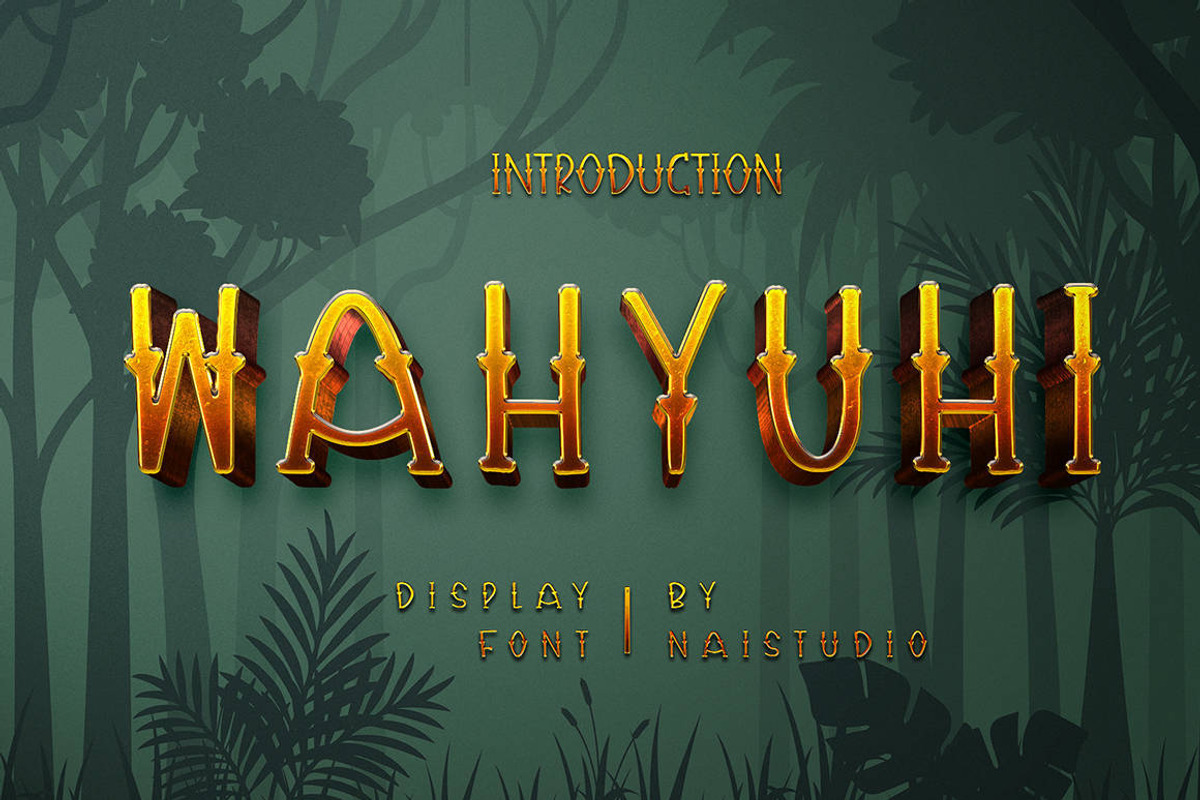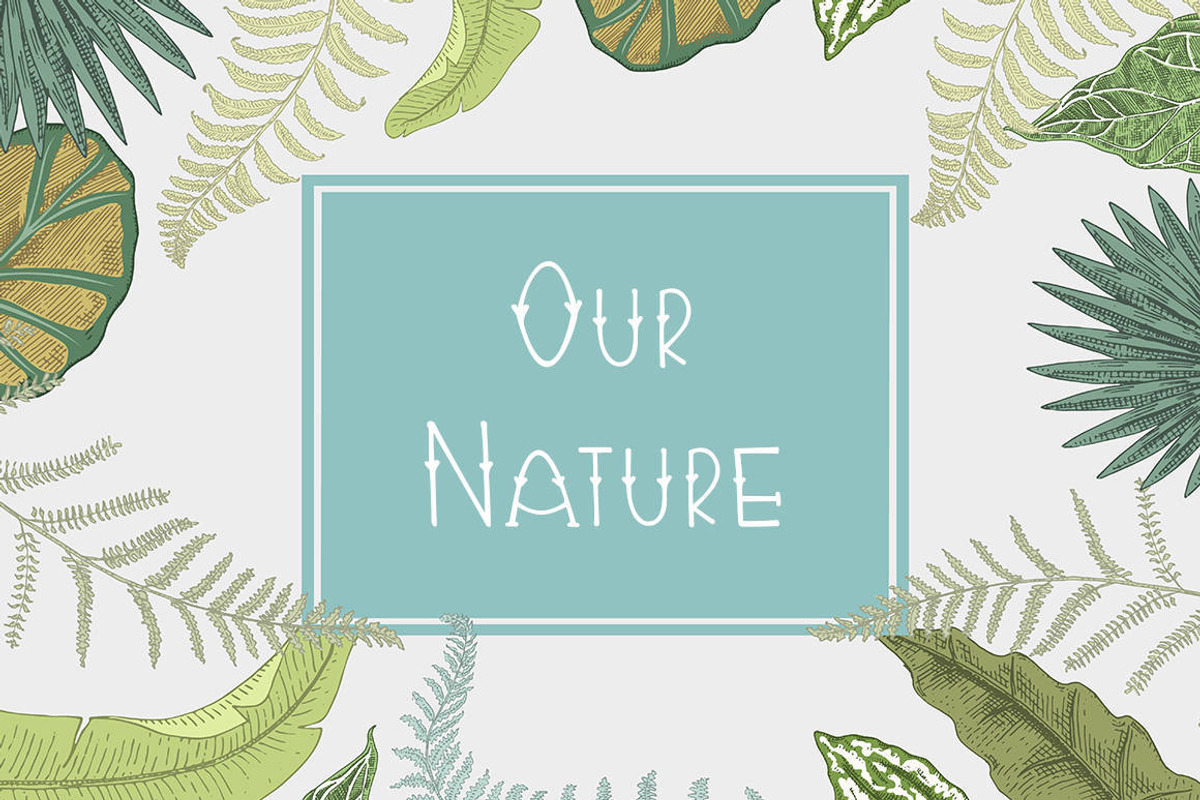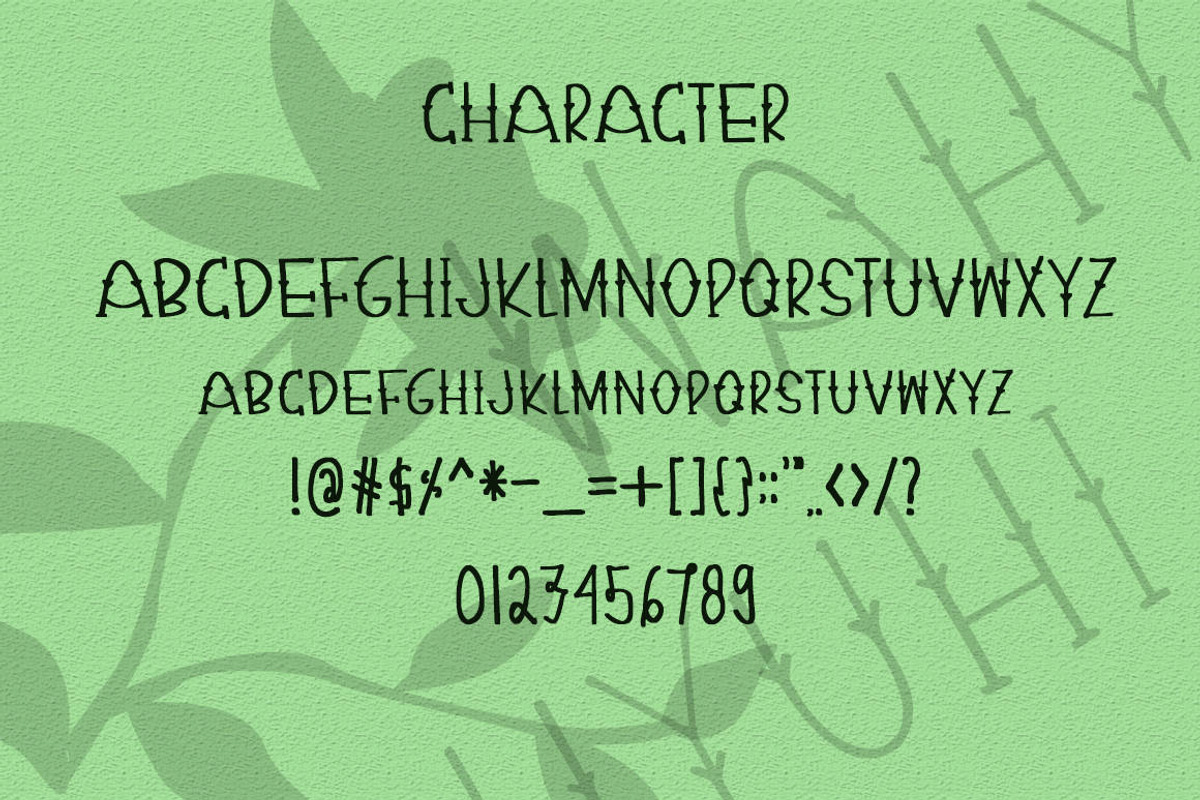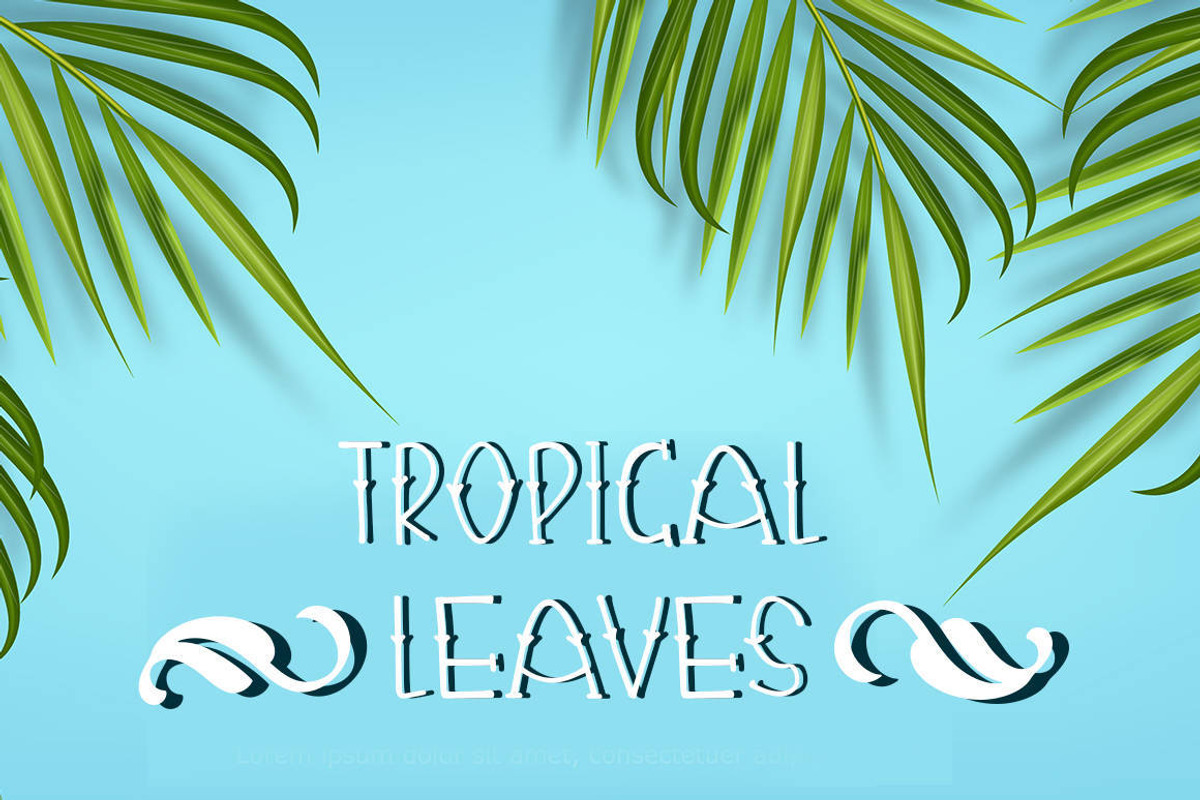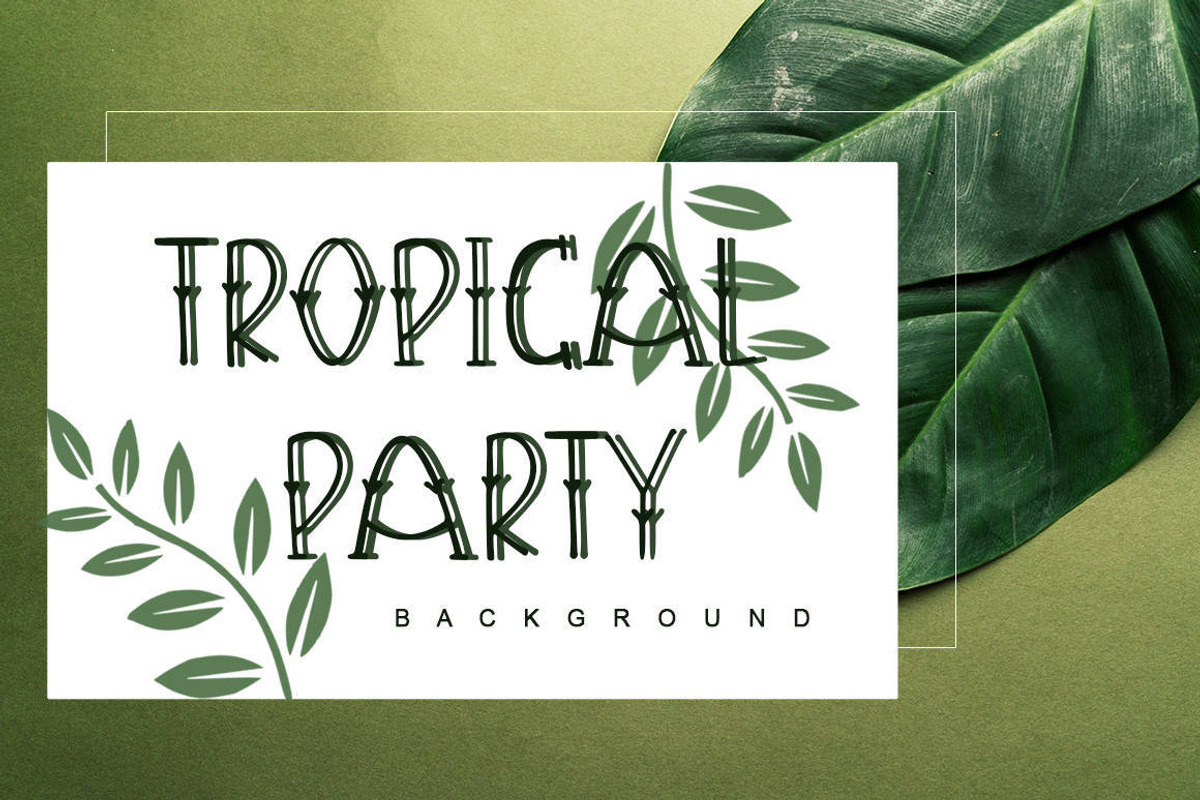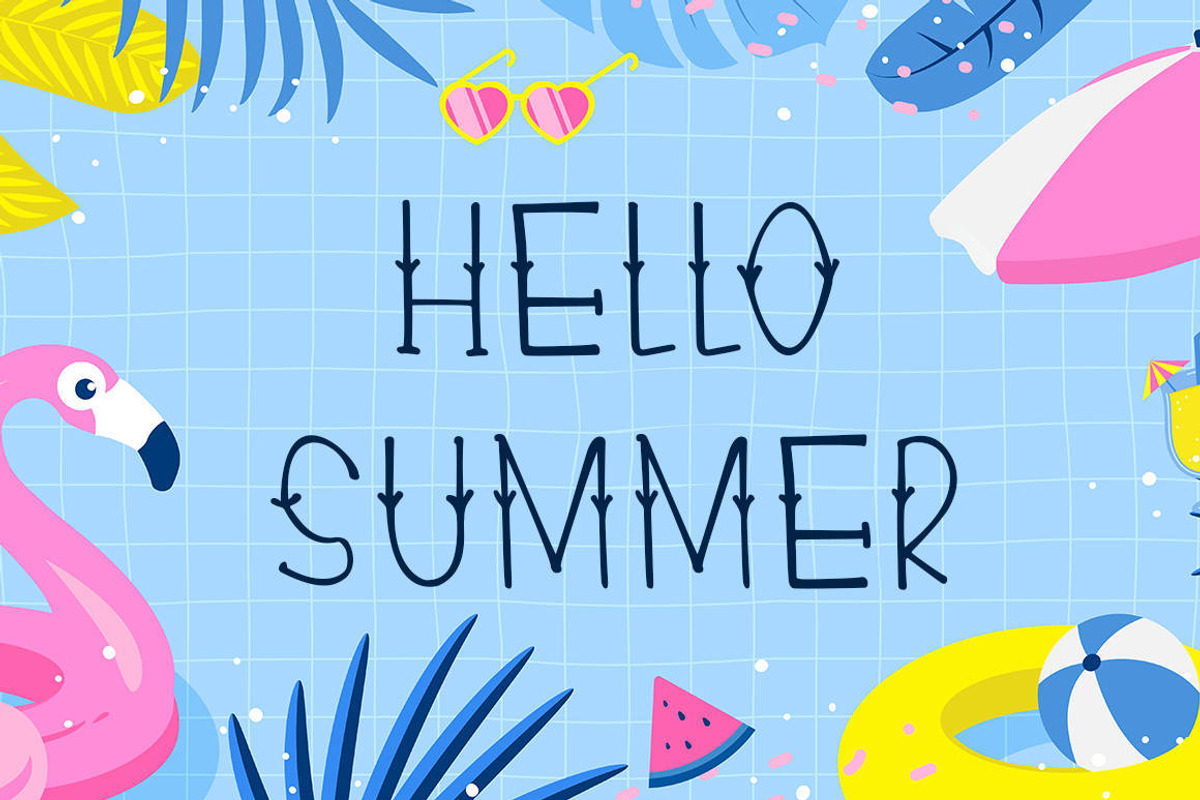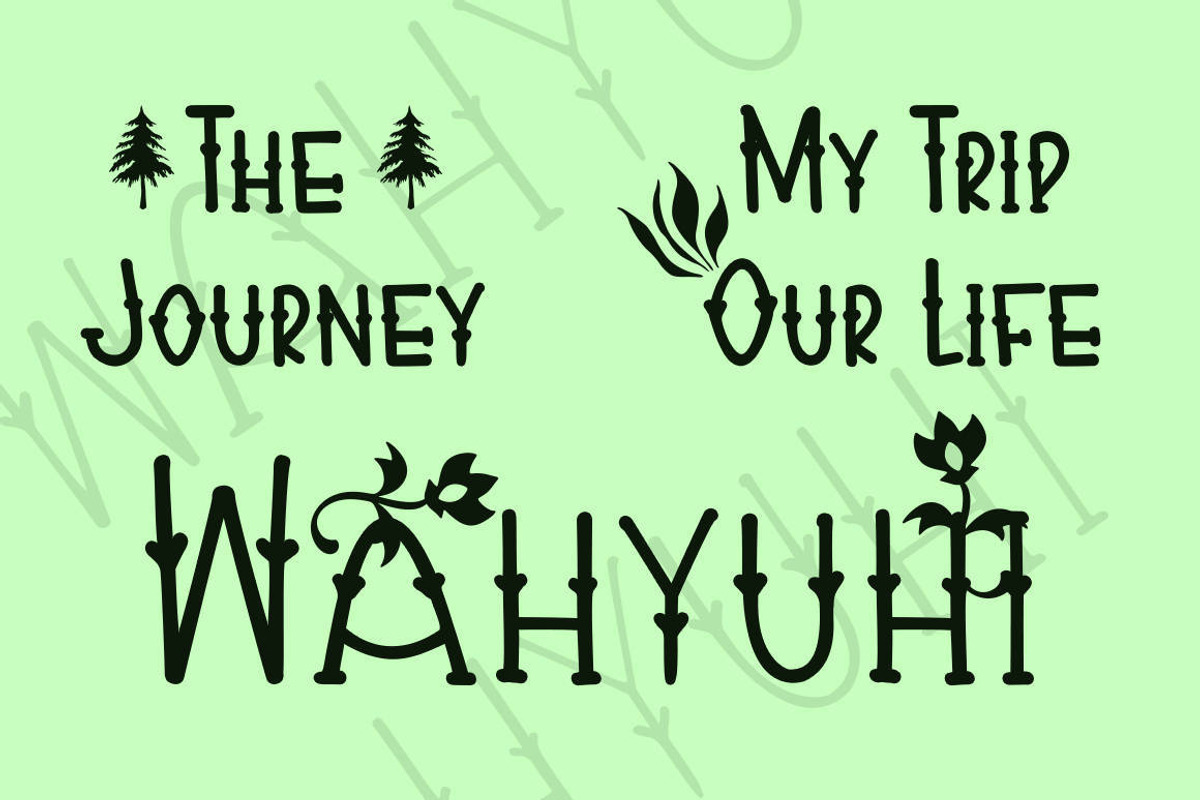
Wahyuhi - Tropical Script Font
Introducing Wahyuhi - Tropical Script Font
Wahyuhi is a delicate, elegant and flowing handwritten font. It has beautiful and well balanced characters and as a result, it matches a wide pool of designs. Add it to your most creative ideas and notice how it makes them come alive!